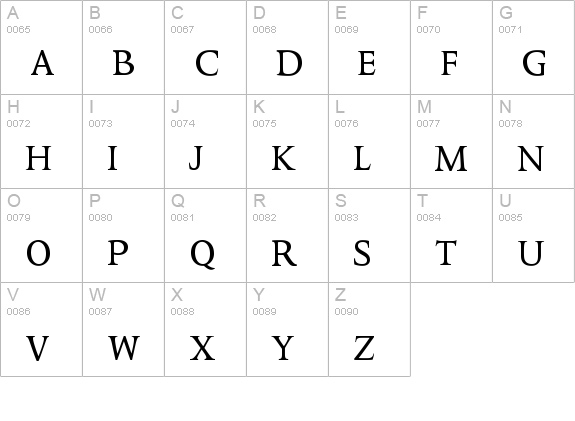
Octavian MT Small Caps & Oldstyle Figures Font Details
Octavian MT Small Caps & Oldstyle Figures is a sophisticated and versatile font that exudes elegance and charm. With its unique blend of small caps and oldstyle figures, this font is perfect for adding a touch of class to any design project. The timeless appeal of Octavian MT makes it a top choice for both traditional and modern applications. What's even better is that this exquisite font is available for free download at FontsMarket.com. Whether you're working on a branding project, editorial design, or any other creative endeavor, Octavian MT Small Caps & Oldstyle Figures is sure to make a lasting impression. Don't miss out on the opportunity to enhance your designs with this stunning typeface – download Octavian MT today and elevate your work to the next level.